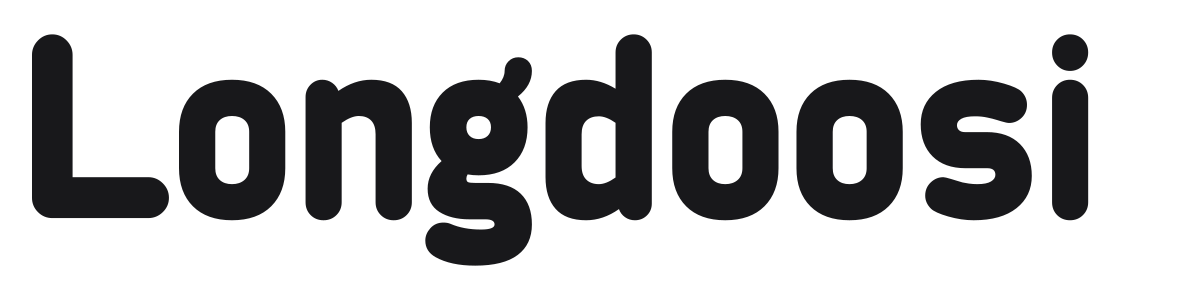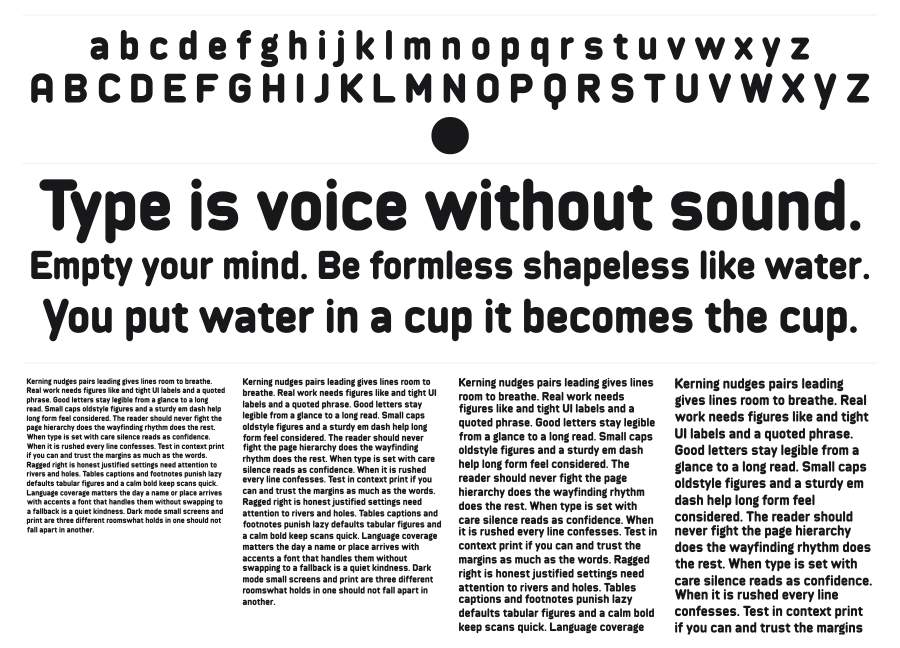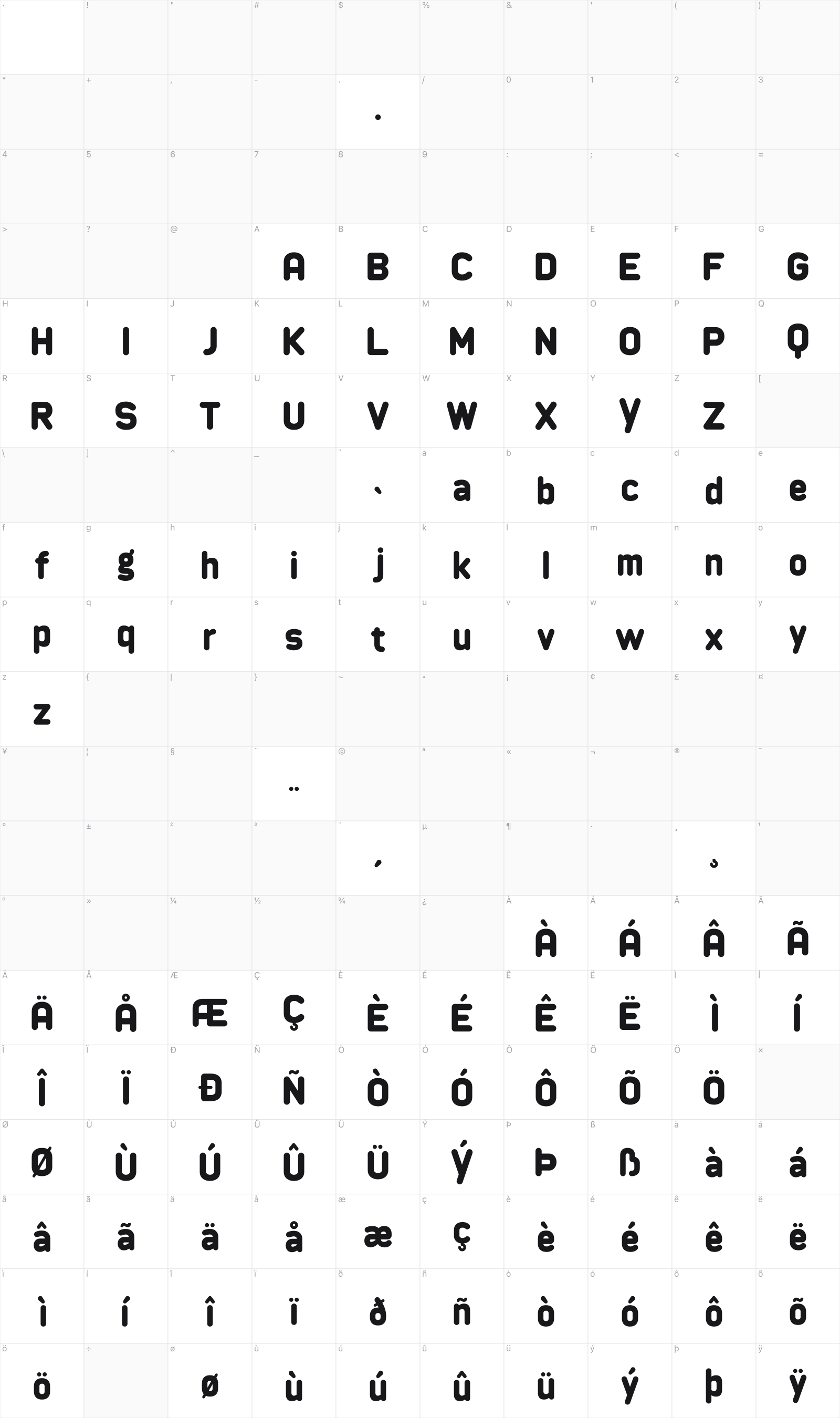
Longdoosi
Longdoosi is a heavy rounded sans with wide proportions and fully rounded terminals throughout. The bold weight and soft edges give it an approachable, cheerful presence without feeling childish. Works well at large sizes for branding, packaging, and headline use.